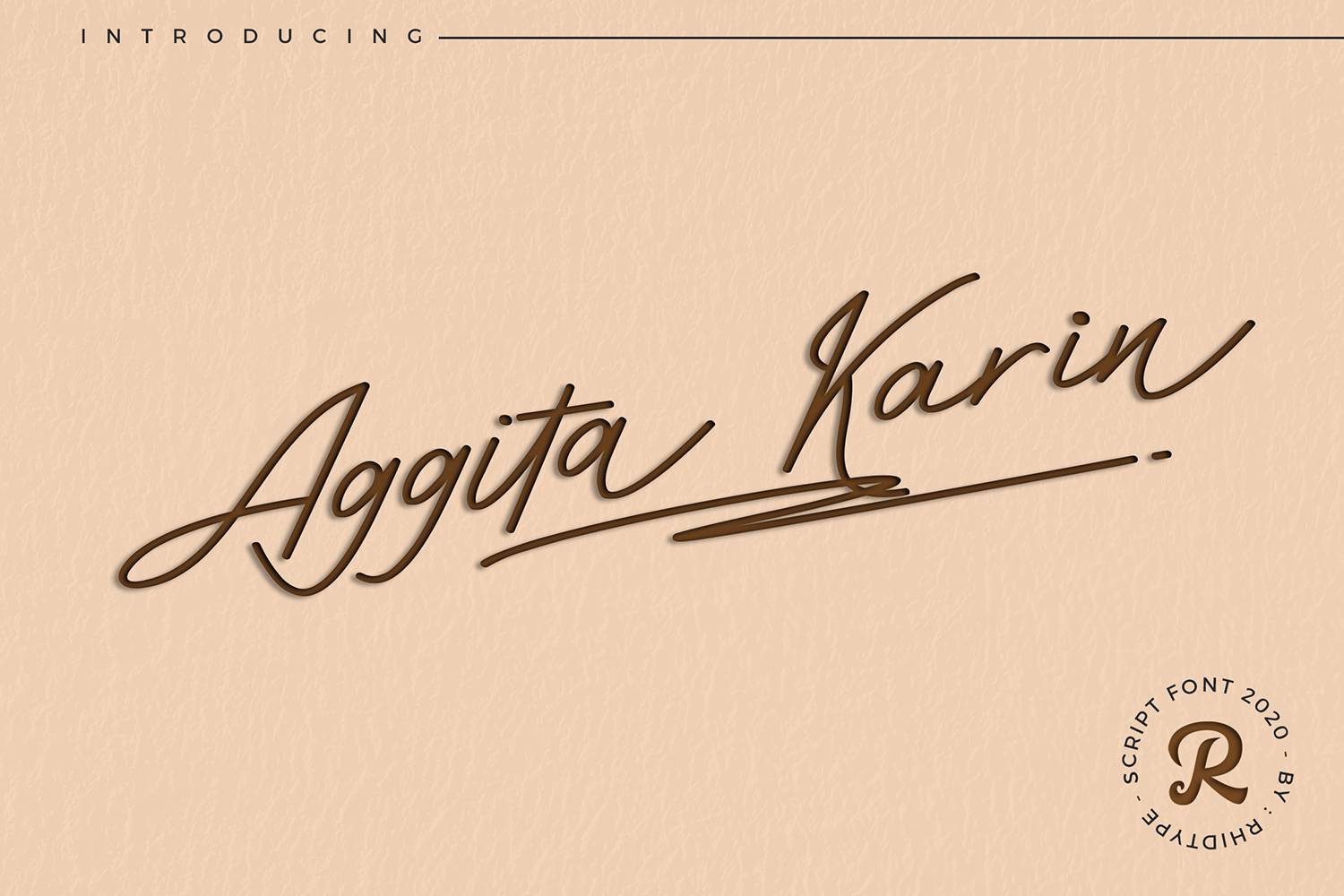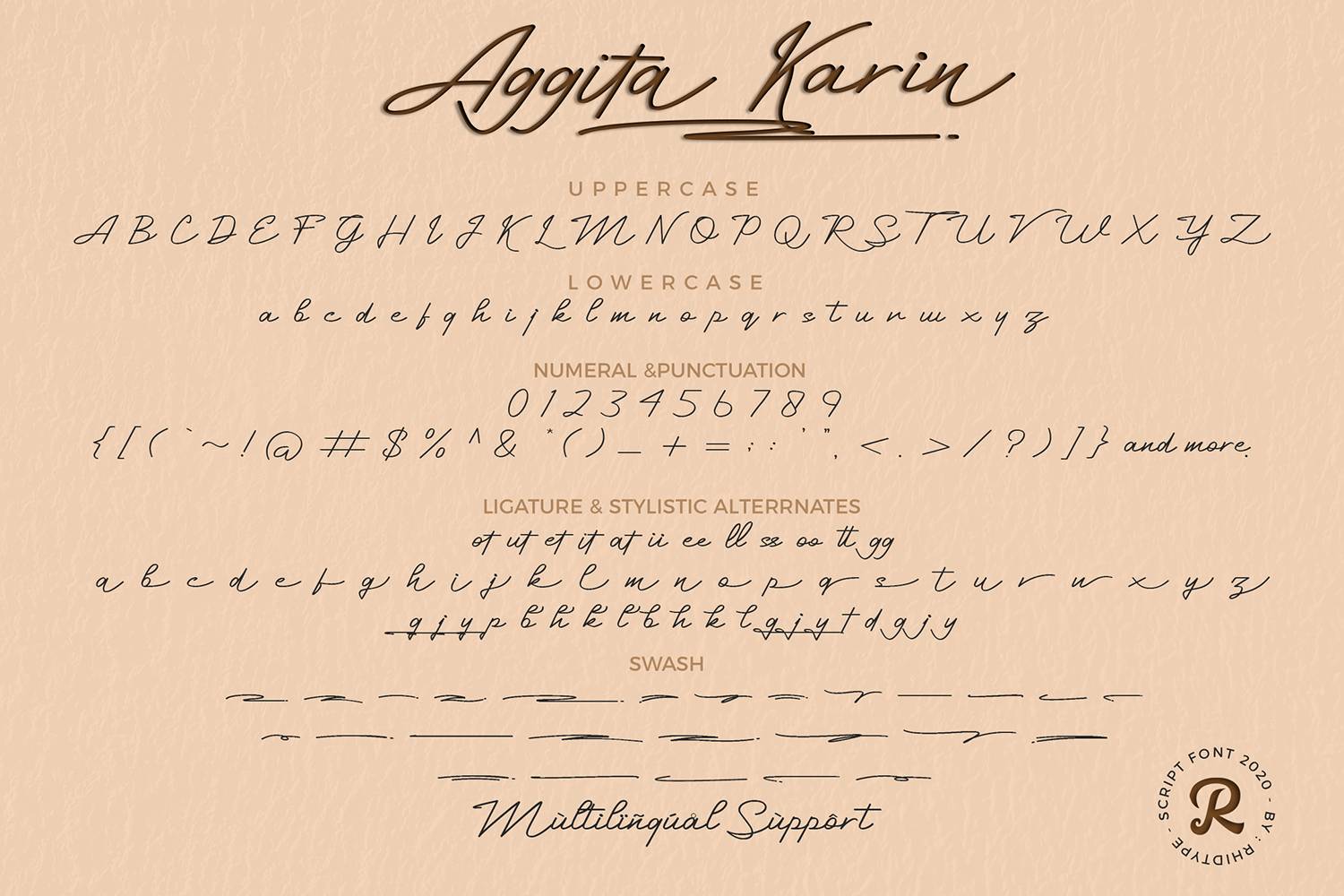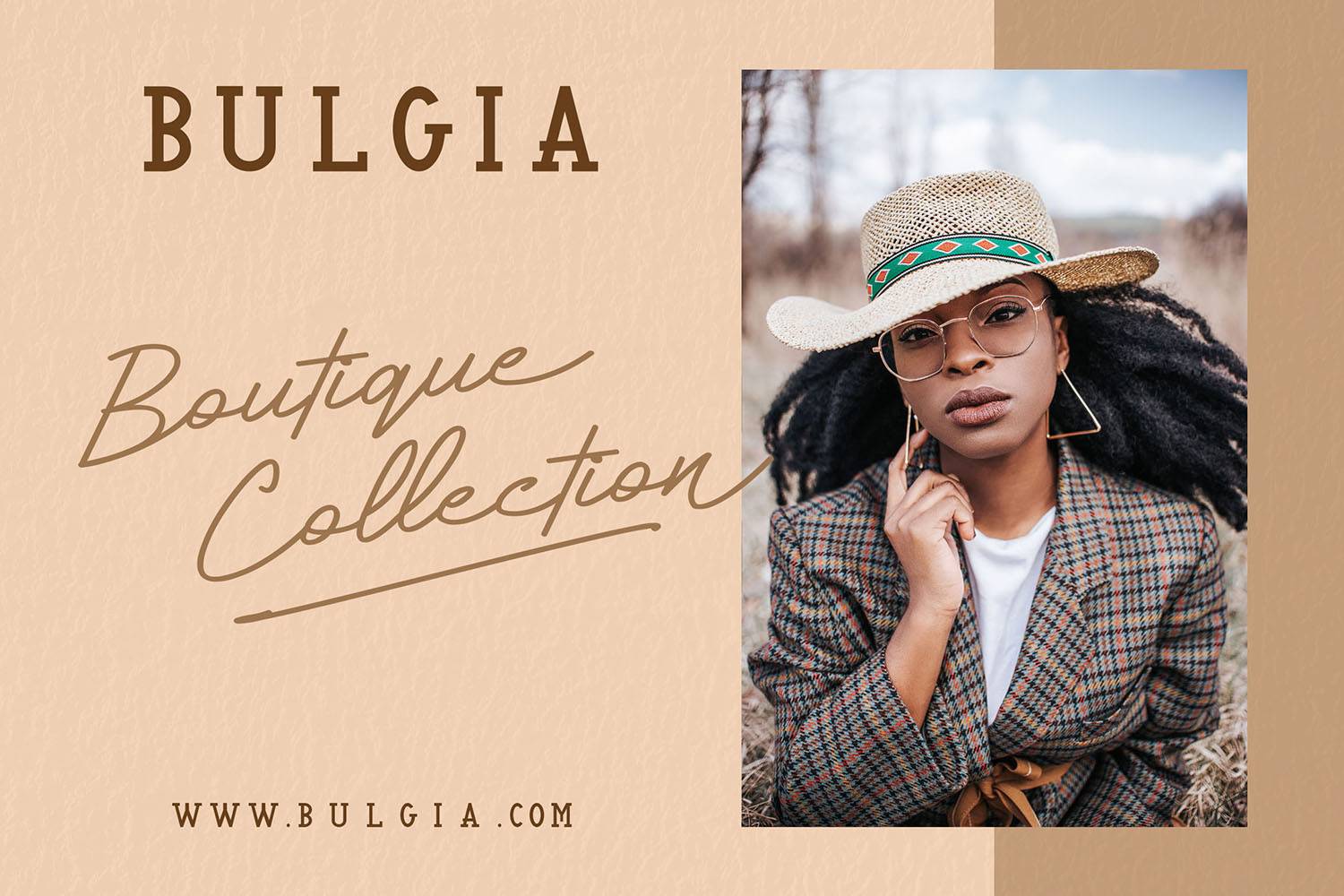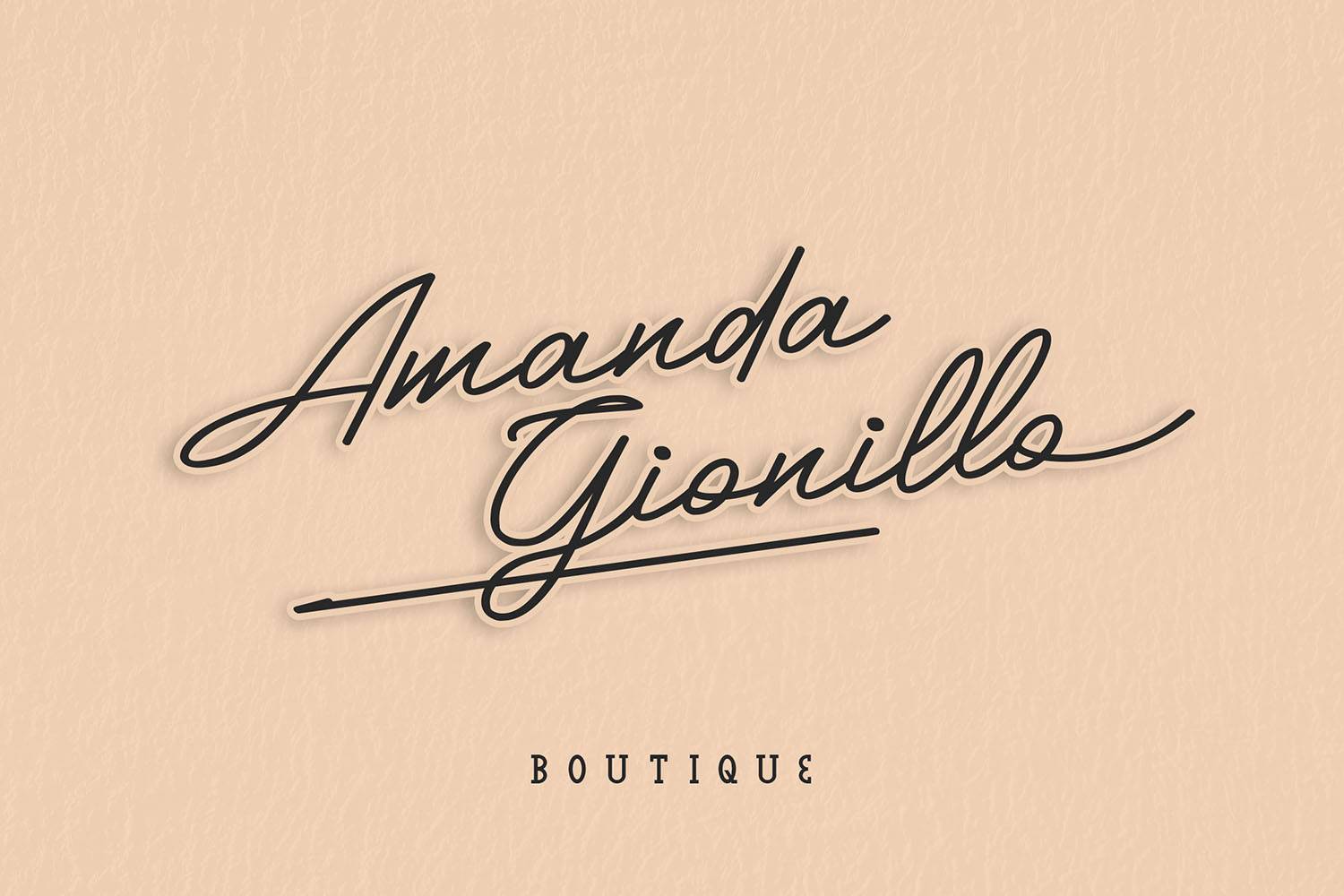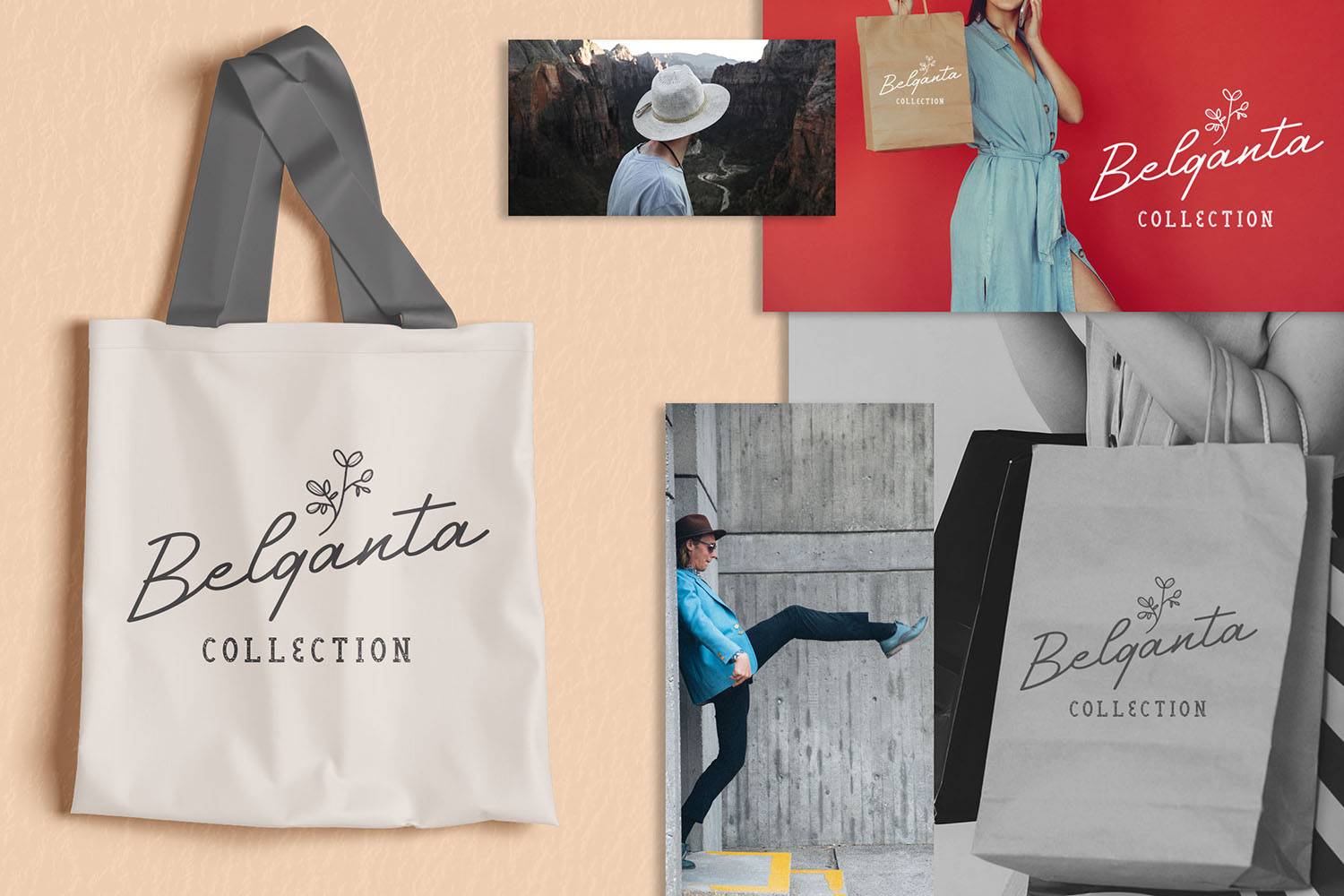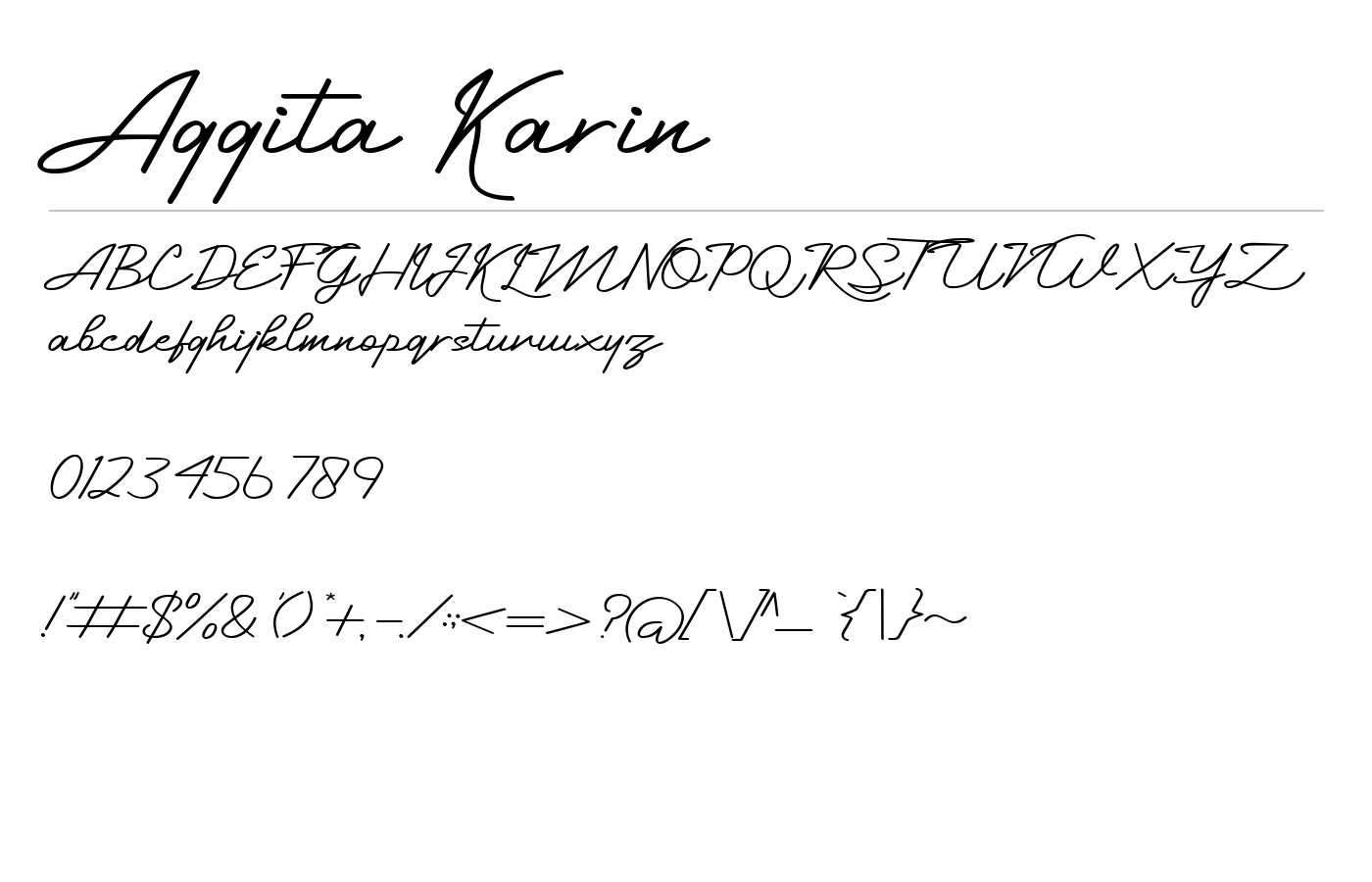
Aggita Karin is an elegant script font with a delicate, handwritten style characterized by smooth, flowing strokes and a light weight. Its refined, cursive letterforms convey a personal and graceful touch, making it ideal for invitations, branding, and any design that requires a sophisticated yet approachable feel. This font works beautifully in contexts where a subtle, stylish signature or decorative text is desired.
Aggita Karin Font
About Aggita Karin Font